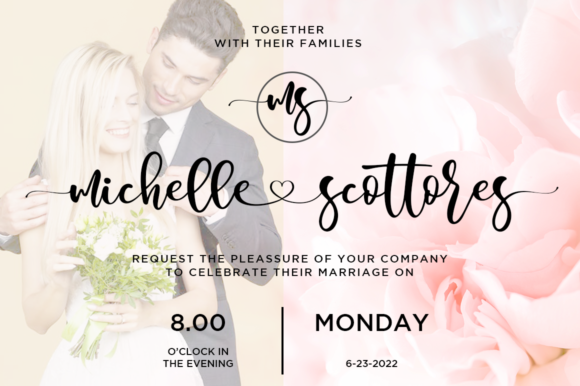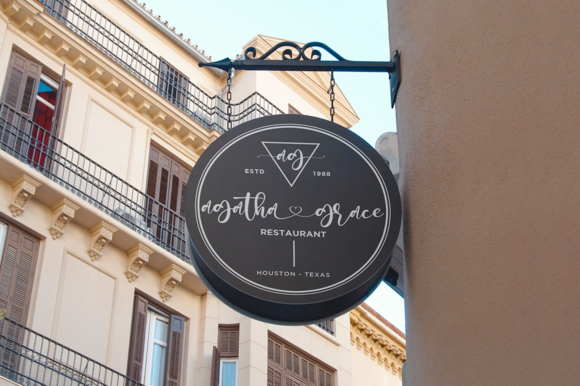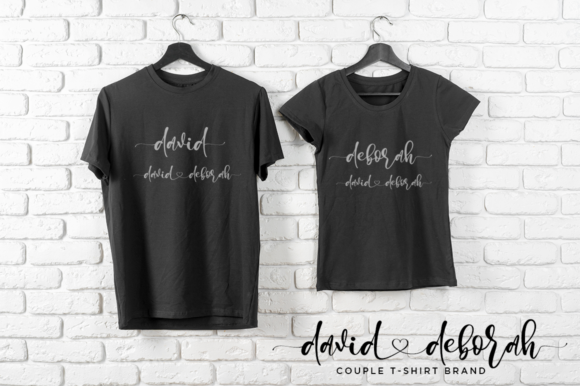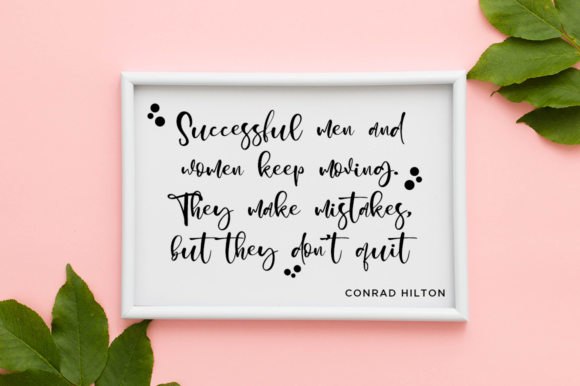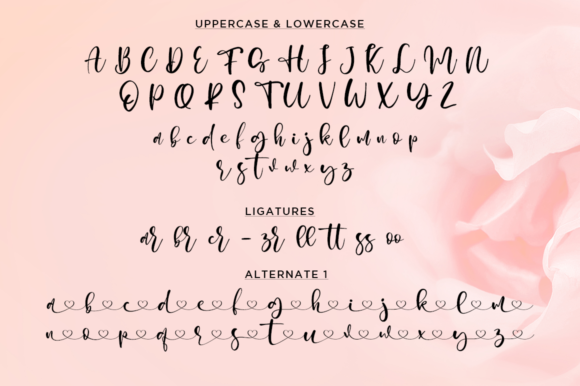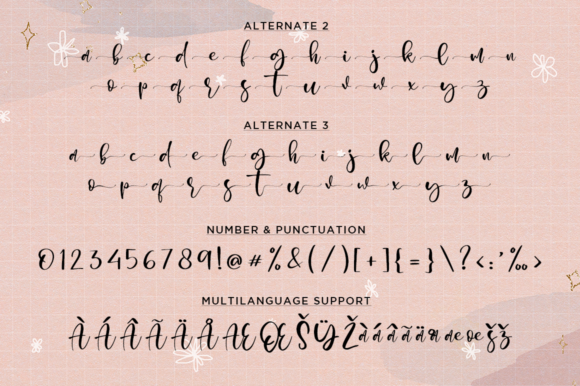
The Sweet Touch of Typography: Introducing Honey Sharon Font
There’s something special about the moment when a design comes together – the perfect blend of creativity, style, and personality. For designers, it’s that “aha” moment when all the elements fall into place, and the project takes on a life of its own. And that’s exactly what happens when you use the Honey Sharon Font.
This stylish modern handwritten script font has a casual flair that’s perfect for branding, signature, wedding invitations, promotions, product packaging, and more. With its PUA encoded features, you can access all of the glyphs and swashes with ease, giving you endless possibilities to add a personal touch to your designs.
As a designer, you know the value of having the right tools to bring your vision to life. That’s why Honey Sharon Font is a valuable addition to any design toolkit – it’s a game-changer for adding a touch of elegance and sophistication to your projects.
Honey Sharon Font Key Features
- Unique Characteristics: Honey Sharon is a script font designed to resemble handwritten text, featuring a smooth and elegant appearance with subtle variations in letterforms.
Honey Sharon Font Review
I recently had the chance to work with the Honey Sharon Font, and I must say it’s a unique and intriguing typeface. Here are my thoughts on what works well and what doesn’t:
- Elegant and refined aesthetic: The Honey Sharon Font has a sophisticated look that’s perfect for high-end branding, luxury goods, or premium services.
- Excellent legibility: The font is well-designed, making it easy to read even in smaller sizes.
- Versatility: Honey Sharon Font works well in both digital and print media, making it a great choice for designers who need a font that can adapt to different platforms.
- Limited character set: The font only includes a basic set of characters, which may be a limitation for designers who need a font with a wider character set.
- Not suitable for body text: While Honey Sharon Font is great for headings and titles, it may not be the best choice for body text due to its formal and elegant style.
The Honey Sharon Font is a solid choice for designers who need a high-end, elegant typeface for their projects. While it may have some limitations, it’s a great addition to any designer’s toolkit. Just be aware of its limitations and use it accordingly.
Tips for Getting the Most Out of Honey Sharon Font
Use Honey Sharon font for creative projects that require a unique and playful touch.
Combine Honey Sharon with other fonts for a visually appealing contrast.
Experiment with different font sizes and colors to create a striking visual effect.
Honey Sharon font is perfect for:
Food and beverage branding.
Children’s book illustrations.
Creative marketing materials.
Alternatives to Honey Sharon Font for Designers
Great Vibes is a beautiful, elegant script font perfect for adding a touch of sophistication to your designs. It is ideal for use in invitations, wedding stationery, and other special occasions. Great Vibes has a more refined and classic feel compared to Honey Sharon Font, which makes it a great choice for formal events.
Alex Brush is a handwritten font that exudes a sense of warmth and personality. It is perfect for use in logos, branding, and advertising. Alex Brush has a more playful and casual feel compared to Honey Sharon Font, making it a great choice for creative and informal projects.
Carolyna Pro is a modern, elegant script font that is perfect for use in luxury branding, packaging, and advertising. It has a more refined and sophisticated feel compared to Honey Sharon Font, making it a great choice for high-end projects.